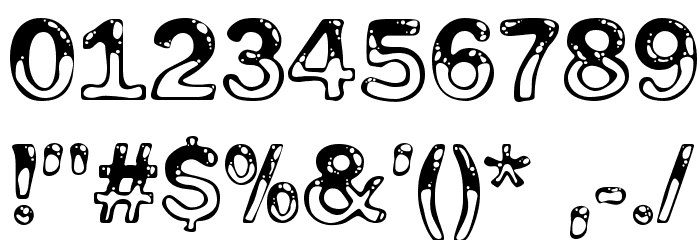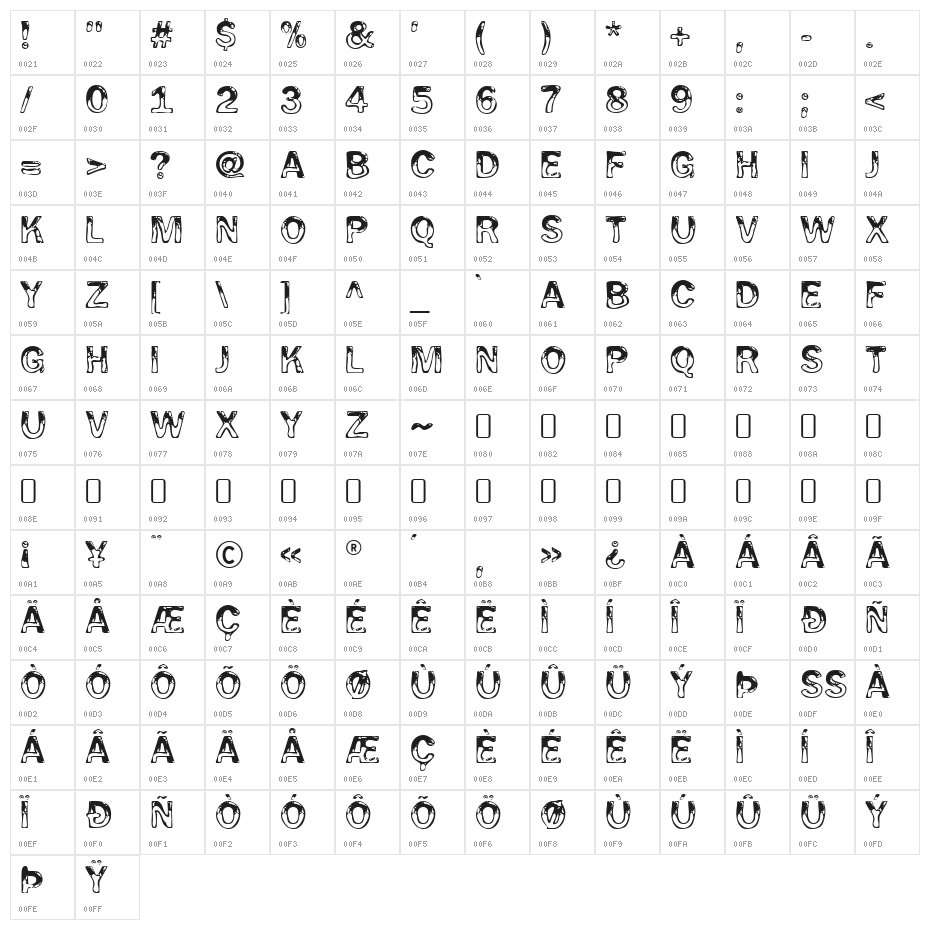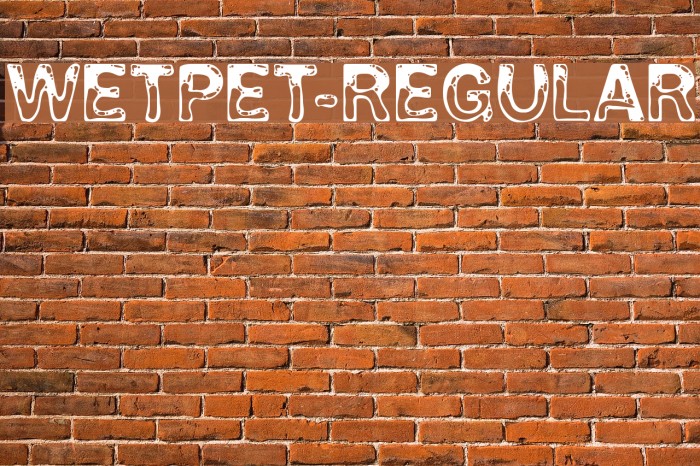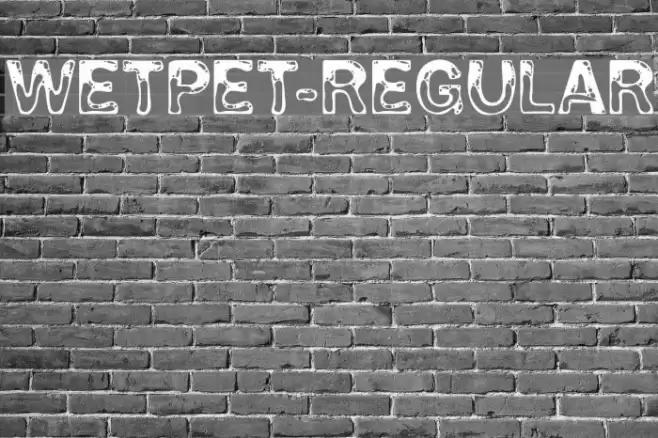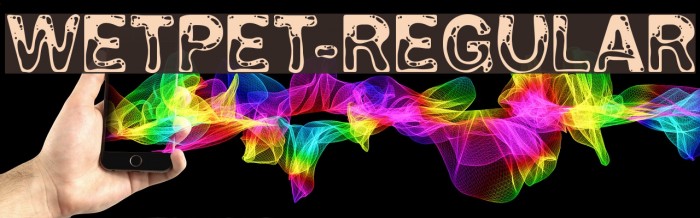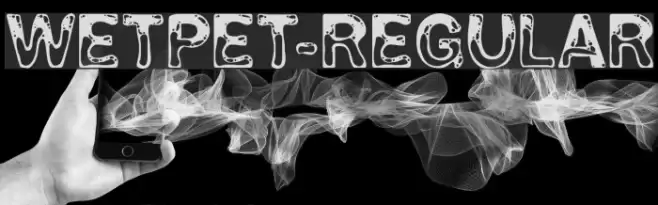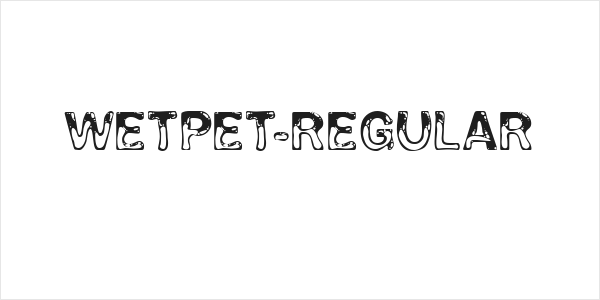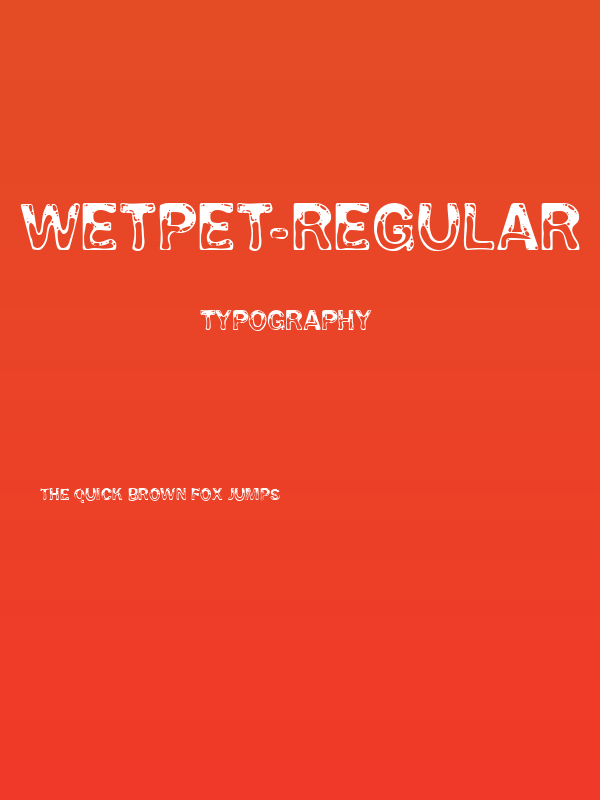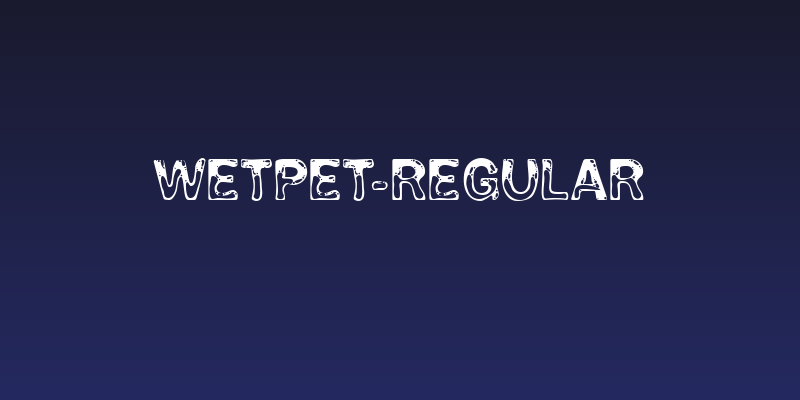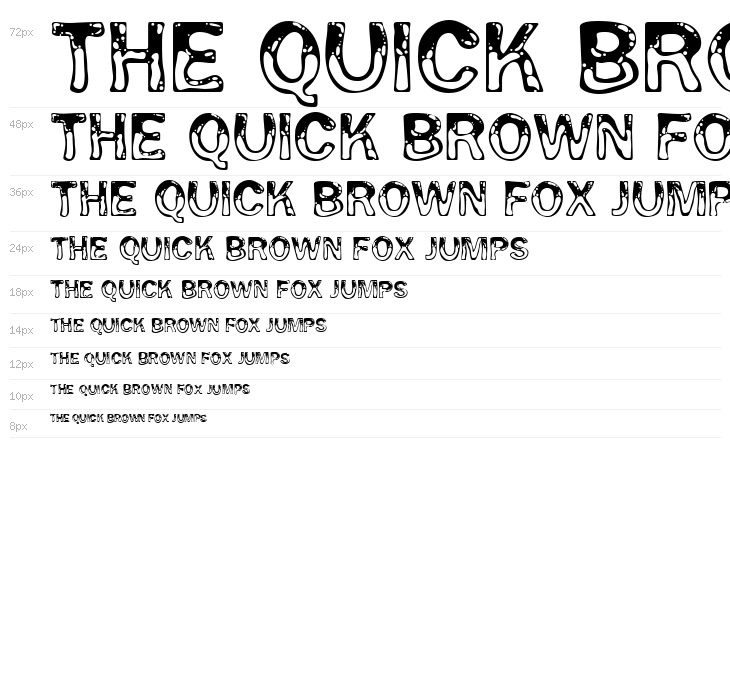
WetPet-Regular Font
WetPet-Regular Description
This playful and whimsical font features a unique design with a bubbly, liquid-like texture within each character. The letters are bold and rounded, giving a sense of fun and creativity. The font includes both uppercase and lowercase alphabets, numbers, and a variety of special characters. Its distinct style makes it stand out, with each character appearing as if it is filled with droplets or bubbles, adding a dynamic and lively feel. The font is perfect for projects that require a touch of humor and lightheartedness, making it ideal for children's materials, party invitations, or creative branding.
Overall StylePlayful, Whimsical
Proposed ProjectsIdeal for children's books, party invitations, playful branding, and creative posters.